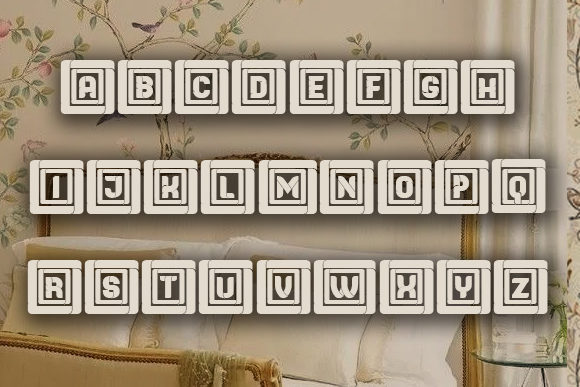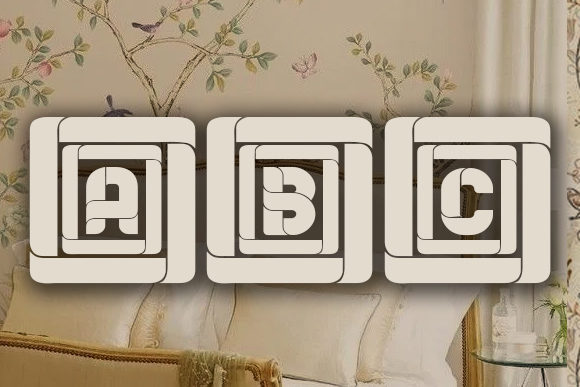
Introducing Browser Capitals Font: The Ultimate Decorative Font for Creative Standouts
In the world of typography, fonts play a crucial role in bringing creative ideas to life. For designers, crafters, and DIY enthusiasts, finding the perfect font can make all the difference in making a project stand out. If you’re on the hunt for a font that embodies fun, quirkiness, and authenticity, look no further than Browser Capitals Font. This enchanting decorative font is sure to turn any creative idea into a true standout, and we’re excited to dive into its features and uses.
The Essence of Browser Capitals Font
Browser Capitals Font is a unique and captivating decorative font that exudes a sense of playfulness and whimsy. Its distinctive characters are carefully crafted to add a touch of personality to any design project. Whether you’re working on a logo, branding materials, or craft projects, this font is designed to make your creations shine. With Browser Capitals Font, you can add a dash of fun and quirkiness to your designs, making them truly unforgettable.
Key Features of Browser Capitals Font
- Unique and Decorative: Browser Capitals Font boasts a one-of-a-kind design that’s sure to grab attention. Its decorative characters are perfect for adding a touch of elegance and sophistication to your projects.
- Fun and Quirky: This font’s playful and whimsical nature makes it ideal for designs that require a dash of personality. From craft projects to branding materials, Browser Capitals Font is sure to bring a smile to your audience’s faces.
- Authentic and Handcrafted: Each character in Browser Capitals Font is carefully handcrafted to ensure a genuine, human touch. This font is perfect for designers and crafters who value authenticity and uniqueness.
- Versatile: Browser Capitals Font can be used for a wide range of design projects, from logos and branding materials to craft projects, posters, and more.
Uses for Browser Capitals Font
So, how can you use Browser Capitals Font in your creative projects? Here are a few ideas to get you started:
- Logo Design: Create a memorable logo that stands out from the crowd with Browser Capitals Font. Its unique characters are perfect for crafting a distinctive brand identity.
- Craft Projects: Add a touch of personality to your craft projects, such as handmade cards, gift tags, and scrapbooking pages.
- Branding Materials: Use Browser Capitals Font to create eye-catching branding materials, such as business cards, brochures, and flyers.
- Posters and Signage: Make your posters and signage pop with Browser Capitals Font. Its decorative characters are sure to grab attention and leave a lasting impression.
Tips for Working with Browser Capitals Font
To get the most out of Browser Capitals Font, here are a few tips to keep in mind:
- Experiment with Colors: Browser Capitals Font looks great in a variety of colors. Experiment with different hues and combinations to find the perfect look for your project.
- Mix and Match: Don’t be afraid to mix and match Browser Capitals Font with other fonts to create a unique look.
- Pay Attention to Spacing: Make sure to adjust the spacing between characters to ensure your text is easy to read and visually appealing.